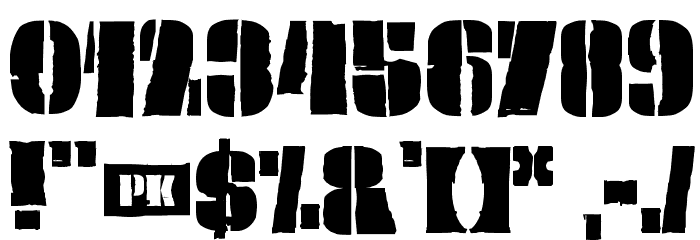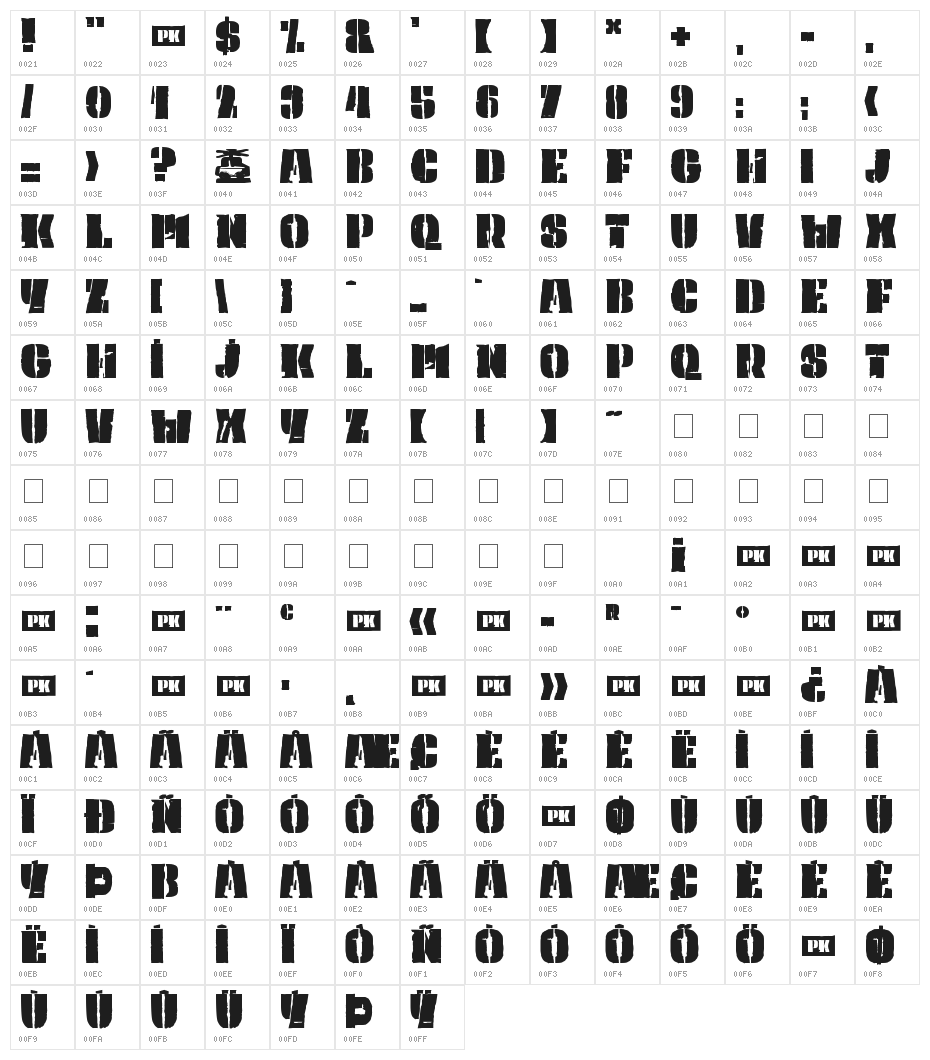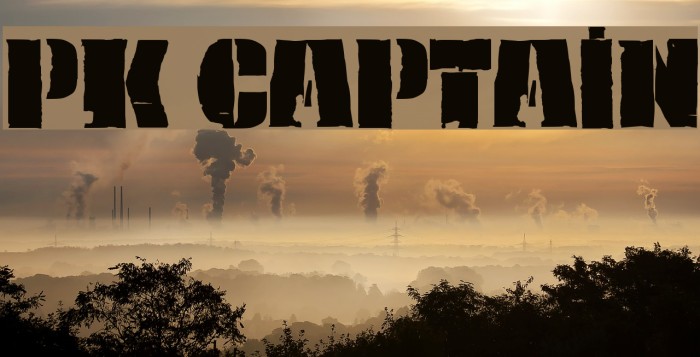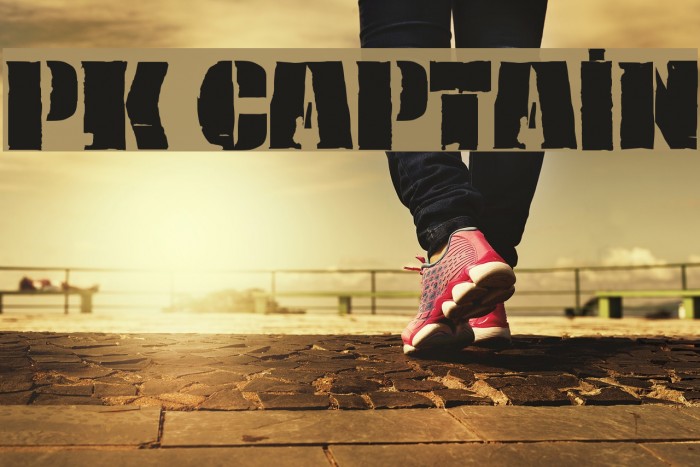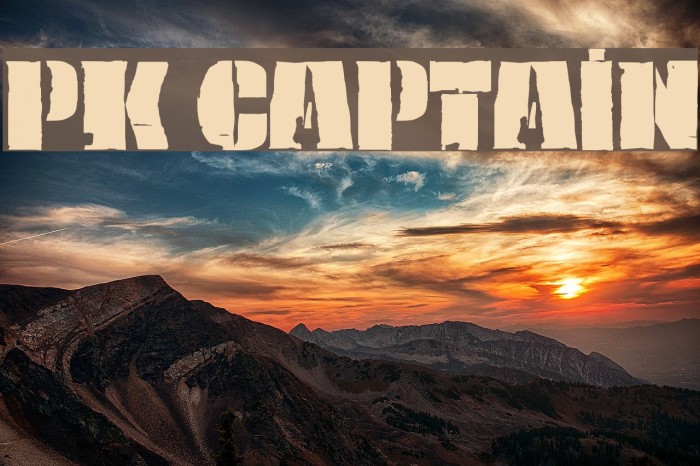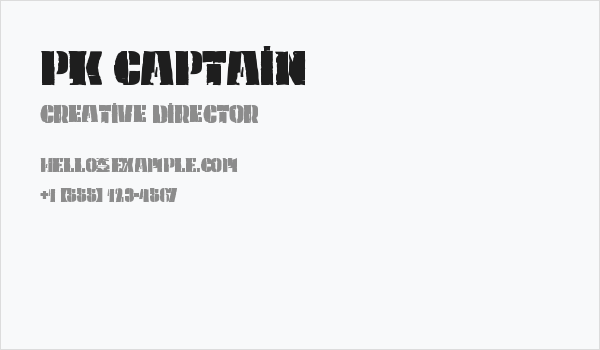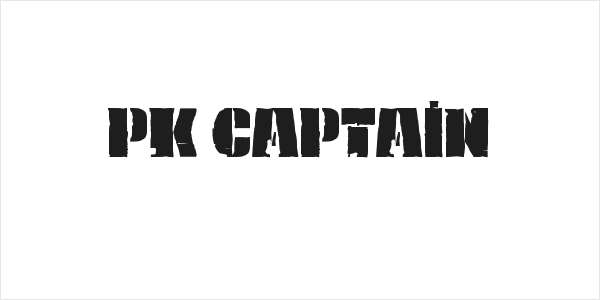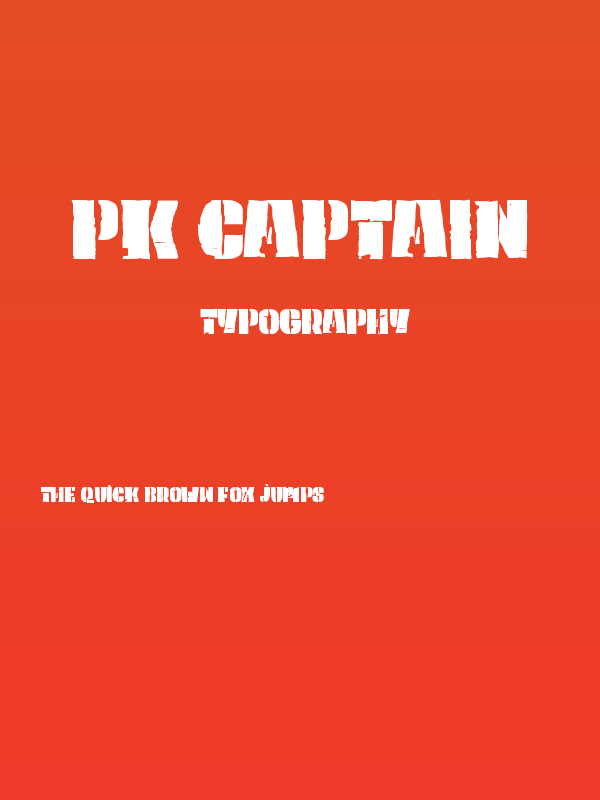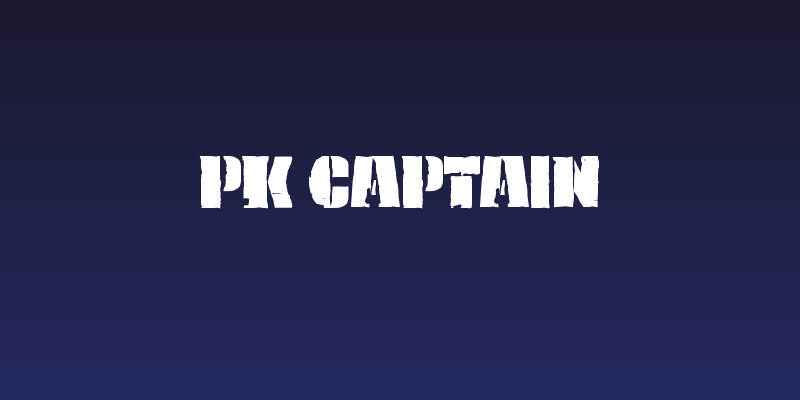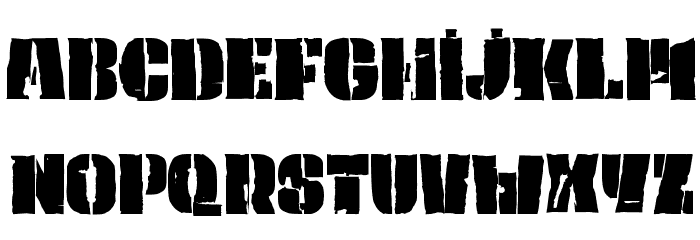
PK Captain Font
PK Captain Description
This font features a bold, stencil-like design with a rugged and distressed appearance. The characters are heavily stylized, with irregular edges and a blocky structure that evokes a sense of industrial or military aesthetics. The uppercase and lowercase letters maintain a consistent width, contributing to a uniform look across the typeface. The numbers and special characters follow the same design principles, ensuring cohesion throughout. This font's unique style makes it stand out, suitable for projects that require a strong, impactful visual presence.
| Overall Style | Industrial, Rugged |
| Proposed Projects | Ideal for posters, branding, military-themed designs, and urban art projects. |